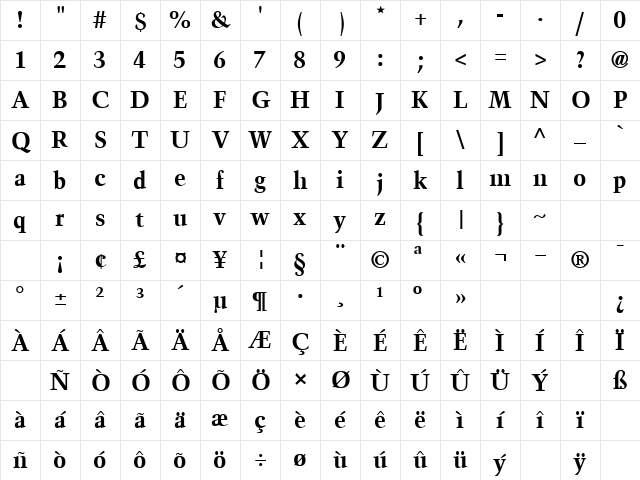
Toure Bold
Design Context for Toure
Toure is a composed and adaptable typeface that performs quietly and consistently across a wide range of design contexts. Its bold stroke weight gives it real presence on the page.
Pro Tip: Use Toure in both headline and body roles to test its range before committing to a single application.